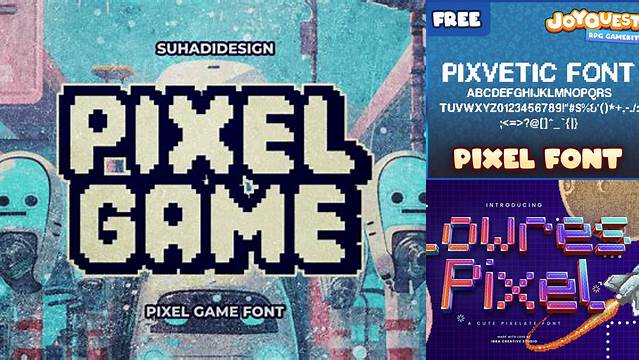
Get Awesome Free Pixel Fonts For Your Games!
Hey there, game devs and pixel art enthusiasts! Looking for the perfect free pixel font for games to give your project that retro, blocky charm? You've come to the right place! Choosing the right font can make or break the visual appeal of your game. So, let's dive into the world of pixel fonts and find the ideal typography to level up your game's design, shall we?
1. Understanding the Essence of Pixel Fonts
Guys, before we jump into the freebies, let's quickly understand what makes a pixel font tick. Unlike smooth, vector-based fonts, pixel fonts are designed to be displayed at low resolutions, using a grid of individual pixels to form each character. This gives them that signature chunky, nostalgic look that's perfect for retro-style games, indie titles, and anything that wants to capture that classic arcade vibe. A free pixel font for games is more than just a set of characters; it's a design choice that impacts readability, aesthetic, and overall game feel. The design must be optimized to be readable even at very small sizes. Think of it as crafting each letter, number, and symbol pixel by pixel, ensuring every detail contributes to a cohesive visual experience. The choices you make – the thickness of the lines, the shapes of the curves (or lack thereof!), and the spacing between the characters – all play a crucial role in making the font a successful part of your game's visual identity. A well-chosen pixel font elevates the user interface, enhances the game's storytelling, and communicates the game's tone, whether it's playful, serious, or anything in between.
2. Finding Reputable Sources for Free Pixel Fonts
Alright, let's find you a free pixel font for games! The web is overflowing with resources, so where do you start? There are many great websites that offer a wide range of fonts for personal and commercial use. Websites like Google Fonts have excellent options. Always double-check the license before you download and use a font to make sure you can use it commercially. Don't just grab the first font you see; consider the style of your game. Is it a platformer? A space shooter? A puzzle game? Each genre might call for a different font. Spend some time browsing, trying out different fonts, and seeing how they look in your game's UI. Many font websites also provide a preview tool. When you have picked out a font, use a testing tool to preview what the font looks like. Ensure it works well in your game's intended resolution and size. Before you commit, make sure the font includes all the characters you need – numbers, punctuation, special symbols, and maybe even some international characters, depending on your game's target audience. The last thing you want is to discover a missing character after you've integrated the font into your project! This preparation helps save you time and frustration.
3. Top Websites to Download Free Pixel Fonts
Let's talk about the treasure troves where you can find a free pixel font for games. DaFont is a classic starting point, offering a vast collection. Font Squirrel is another great option, known for its curated selection of high-quality fonts. Then there's Google Fonts, which is easy to use with lots of variety. Keep an eye on the license: most fonts will be free for personal use, but commercial use may require a license. Pay close attention to these details. Some fonts have specific rules about how they can be modified or used, so always read the fine print. Some sites also have forums where designers share their work and offer support. This is a great place to get feedback or troubleshoot any problems. Downloading and integrating a pixel font into your game is generally straightforward. After you download the font files (usually .ttf or .otf), you'll need to install them on your computer. In your game engine, you'll then need to import the font file and use it in your UI elements. This can vary depending on the game engine. The key to using the correct font is to get a font that matches the game. For example, a classic arcade game would be great with a square-block font, or a futuristic game might use a slightly more refined pixelated design. These small choices can help define your game’s personality and draw players into your game.
4. Key Considerations When Choosing a Pixel Font
When selecting a free pixel font for games, consider your game's style and your target audience. A bold, chunky font might be perfect for a fast-paced action game. But it might overwhelm a slower-paced puzzle game. Readability is key, especially when you're designing for a low-resolution environment. Choose fonts with clear, distinct characters that can be easily recognized at small sizes. Some fonts are designed to be visually appealing, but may not be very readable when crammed into small spaces. Remember that a pixel font's success hinges on its ability to translate your game’s essence into a visual form that resonates with players. The font itself is an important piece of the puzzle. Think about the tone and personality of your game. Is it lighthearted and comical, or dark and serious? The font you choose should align with these things. Test the font at different sizes and in different game contexts. Pay close attention to how the font looks in menus, dialogue boxes, and any other areas where text will be displayed. This will help you ensure the font works well across the entire game.
5. Assessing Readability and Legibility
Alright, let's talk about the cornerstone of a good free pixel font for games: readability and legibility. Your chosen font needs to be easy to read, even at small sizes. The characters should be distinct, avoiding ambiguity. Font designers work hard to make sure this happens, but it's up to you to test them out in your game. Readability focuses on how easily you can decipher individual characters. Legibility looks at how well you can understand larger blocks of text. A highly legible font is ideal for longer passages, while a readable font may be suitable for titles and UI elements. Start by testing your font at the size it will appear in your game. Ensure each character is easily distinguishable from its neighbors. Then, see how the font looks when used in actual gameplay contexts. Test out all aspects of your game, like the main menu, dialogue boxes, and any other place where text will be needed. The game should test the font at different sizes. If you have a game with a lot of text, choose a font that is both highly readable and legible. This reduces eye strain and helps players quickly absorb information. A font that is too ornate, or has characters that are too similar, can make reading a chore. By prioritizing readability and legibility, you ensure that your players can fully enjoy your game without struggling to understand the text.
7. Pixel Font File Formats: TTF, OTF, and More
When you download a free pixel font for games, you'll encounter different file formats. The most common are TTF (TrueType Font) and OTF (OpenType Font). TTF files are widely compatible with most systems and game engines. OTF files are a newer format that supports more advanced features and character sets, but they may not be supported by all game engines. Besides these two, you may also encounter other formats. Understanding the differences between these formats can help you choose the right font for your project. Most modern game engines support TTF and OTF files. However, it's a good idea to check your engine's documentation to confirm its supported formats. The format you choose will depend on your game's needs and the features you require from the font. Both TTF and OTF files contain instructions that tell the computer how to display each character. When you integrate a font into your game, the engine uses these instructions to render the font. It's worth noting that some fonts are designed specifically for pixel-based graphics and might come in formats optimized for pixel rendering. When choosing a font, make sure the file format is supported by your game engine.
8. Implementing Pixel Fonts in Game Engines (Unity, Godot, etc.)
Integrating a free pixel font for games into your game engine is usually straightforward. Every game engine has its own process. Let's look at how to do it in some popular game engines. In Unity, you start by importing the font file into your project. You can then create a UI Text component and select your imported font. In Godot, you can also import the font file. The process is similar. In the Inspector panel, you can choose the font for your UI elements. Remember to adjust the font size, style, and color to match your game's aesthetic. If you are using a custom game engine, the process will be different. You'll need to consult the engine's documentation. Usually, you'll import the font, create a text object, and then set the font and its properties. Experiment with different font sizes and styles to see how they look in your game. Consider the game's target resolution and how the font will scale. Most game engines provide tools to preview the font in different contexts. This makes it easy to see how the font will look in your game. Always test the font on different devices to ensure that it renders correctly. With some careful planning, you can easily add a pixel font to your game.
9. Best Practices for Pixel Font Scaling and Resolution
When using a free pixel font for games, carefully consider how it will scale. Pixel fonts are optimized for specific sizes, so you may run into problems when you scale them. To ensure your font looks good, consider how it will scale when designing your game. The best way to do this is to maintain an aspect ratio. This helps preserve the font's pixel-perfect appearance. Test the font on different screen sizes and resolutions to make sure it looks great. Ensure that the font does not become blurry or distorted when scaled. Try to use integer scaling. Integer scaling means scaling the font by whole numbers (like 1x, 2x, or 3x) rather than fractional values. This helps preserve the pixelated look. Test the font on different devices, including mobile devices. Keep in mind that mobile devices have different screen resolutions. Choose a font size that is readable on all devices. Sometimes, a font that looks great on a desktop PC might be too small on a mobile phone. Consider the context of your game. Some games may require a larger font size. By implementing these best practices, you can make sure your font looks good on all devices. This will give your game a clean, consistent look and enhance your players' experience.
14. Pixel Font Styles: Retro, Modern, and Beyond
Guys, when you look for a free pixel font for games, you can find many styles. Think about the style of the game when selecting the font. Retro pixel fonts evoke the feel of classic arcade games. These fonts are usually blocky and simple. Modern pixel fonts have a clean look, with less emphasis on the